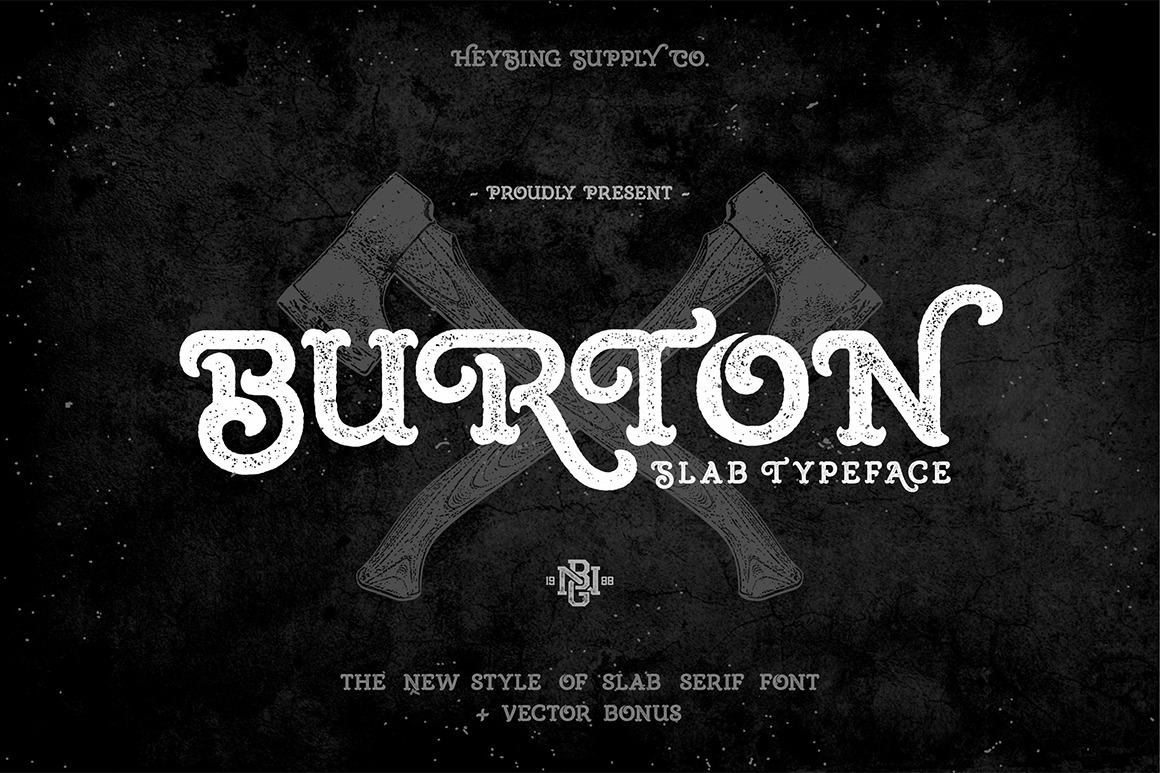
Burton Slab Typeface + Bonus
Burton Slab Typeface is new font from Heybing Supply Co, the new slab serif typeface with the strong and unique shapes, that can handle a lot of designs styles. The font with simple, retro and vintage feel character set. Come with 2 styles, a clean and rough to create an option for the designs. To create the beautiful combination, just mix the uppercase and lowercase then mix with the alternative glyphs.
Burton Slab Typeface includes a full set of capital and lowercase letters, as well as multi-lingual support, currency figures, numerals, punctuation & some extra glyphs.
Burton Slab Typeface is suitable font for many creative products & designs.